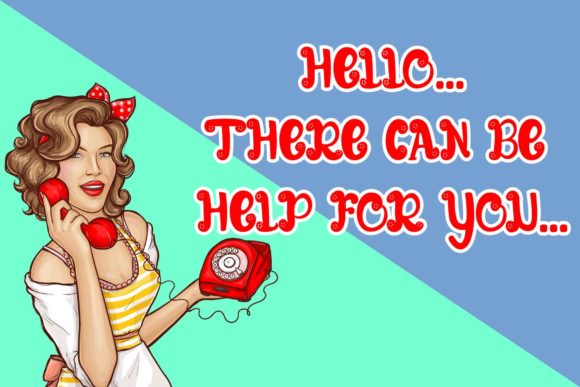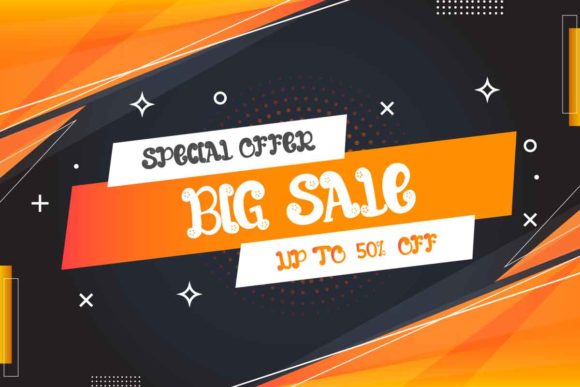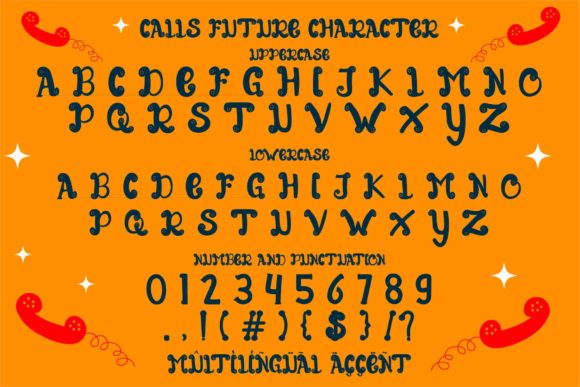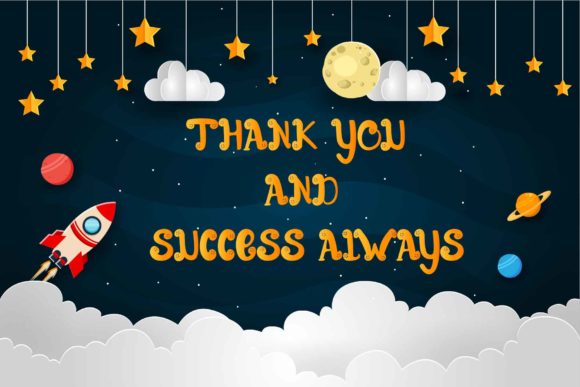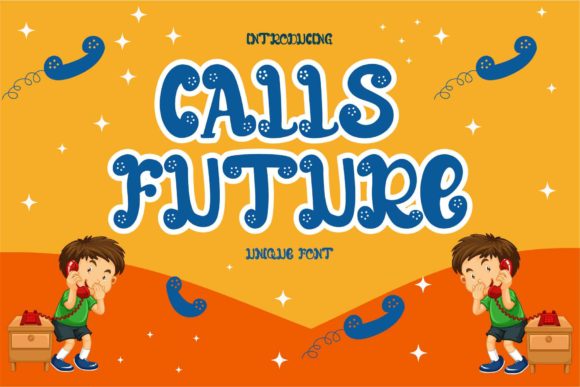
Introducing Calls Future Font: A Playful Display Font for Creative Minds
Are you tired of using the same old fonts for your designs? Look no further! Calls Future Font is a playful display font that is sure to add a touch of whimsy and fun to your projects. With its bubble lettering and quirky accents, this font is perfect for designers and crafters who want to add a bit of personality to their work.
What is Calls Future Font?
Calls Future Font is a unique and eye-catching display font that features bubble lettering and quirky accents. The font is designed to be playful and fun, making it perfect for use in a variety of creative projects. Whether you’re designing a logo, creating a social media graphic, or crafting a handmade card, Calls Future Font is sure to add a touch of personality and whimsy to your work.
Key Features of Calls Future Font
- Bubble Lettering: The font features bubble lettering that gives it a fun and playful feel.
- Quirky Accents: The font includes quirky accents that add to its playful personality.
- Display Font: Calls Future Font is a display font, making it perfect for use in headlines, titles, and other display text.
Who is Calls Future Font for?
Calls Future Font is perfect for designers and crafters who want to add a bit of personality to their work. The font is ideal for:
- Graphic Designers: Graphic designers who want to create eye-catching logos, social media graphics, and other visual elements will love Calls Future Font.
- Crafters: Crafters who enjoy making handmade cards, scrapbooking, and other paper crafts will adore Calls Future Font.
- Small Business Owners: Small business owners who want to create a unique and memorable brand identity will appreciate Calls Future Font.
How to Use Calls Future Font
Using Calls Future Font is easy! Here are a few ways you can incorporate the font into your work:
- Logos and Branding: Use Calls Future Font to create a unique and memorable logo for your business or brand.
- Social Media Graphics: Use the font to create eye-catching social media graphics that will help your posts stand out.
- Handmade Cards and Paper Crafts: Add a touch of personality to your handmade cards and paper crafts with Calls Future Font.
- Signs and Posters: Use the font to create eye-catching signs and posters for your business or event.
Tips and Tricks for Using Calls Future Font
Here are a few tips and tricks for using Calls Future Font:
- Experiment with Colors: Calls Future Font looks great in a variety of colors, so don’t be afraid to experiment and find the perfect color for your project.
- Mix and Match: Mix and match Calls Future Font with other fonts to create a unique and interesting look.
- Use it Sparingly: Because Calls Future Font is a display font, it’s best to use it sparingly to add emphasis and interest to your project.
| Font Name | Calls Future Font |
| Author | Alfinart |
Calls Future Font is a playful display font that is sure to add a touch of whimsy and fun to your designs. With its bubble lettering and quirky accents, this font is perfect for designers and crafters who want to add a bit of personality to their work. Whether you’re creating a logo, social media graphic, or handmade card, Calls Future Font is a great choice. So why not give it a try and see what kind of creative projects you can come up with?